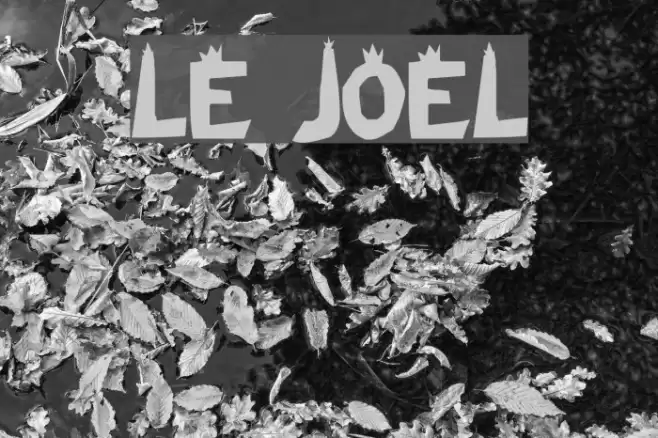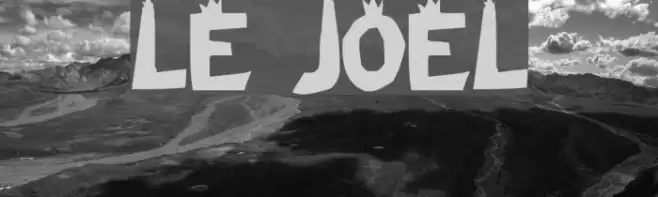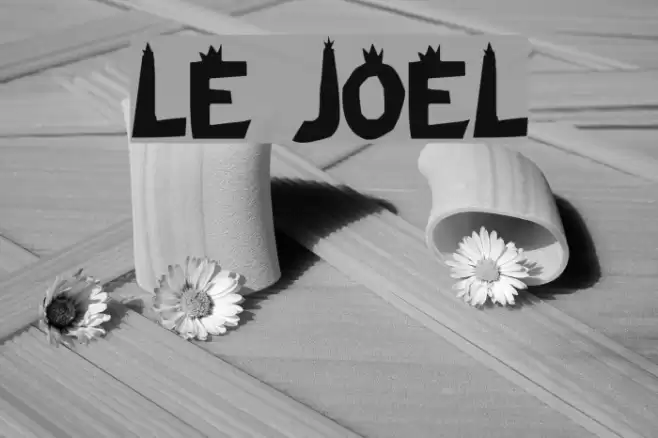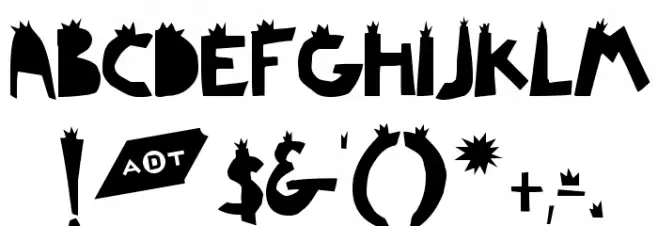
Le Joel Font
Le Joel Description
This font exhibits a playful and jagged design, characterized by its irregular and sharp edges that give it a dynamic and energetic appearance. The uppercase letters are bold and prominent, with exaggerated angles and varying stroke widths that create a sense of movement. The lowercase letters maintain the same whimsical style, ensuring consistency throughout the typeface. The numbers and special characters are equally bold, with unique shapes that add to the font's distinct personality. This font is ideal for projects that require a fun and eye-catching aesthetic, making it suitable for creative and informal applications.
A playful and jagged font with bold, irregular shapes and dynamic energy from Uncategorized fonts.